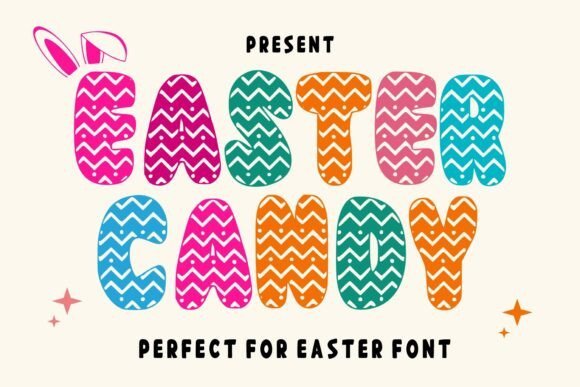
Spring into Creativity with the Easter Candy Font
As the snow melts and flowers bloom, we start to crave the sweet and playful vibes of spring. Have you ever felt the excitement of unwrapping a colorful Easter egg or biting into a sugary candy treat? For designers, this season is the perfect time to tap into that whimsical energy and bring it to life in their creative projects.
Enter the Easter Candy Font, a delightful decorative typeface that captures the essence of Easter eggs and candy. This fun and eye-catching font is designed to add a cheerful touch to any spring or Easter-themed project, from invitations and greeting cards to classroom decorations and social media graphics.
Whether you’re a seasoned designer or a DIY enthusiast, the Easter Candy Font is a valuable addition to your creative toolkit. Its vibrant and playful style makes it perfect for kids’ designs, seasonal branding, and standout headlines – and its ease of use ensures that you can add a joyful pop of color to your projects in no time.
Easter Candy Font Key Features
- Size: The font comes in a single size, but it’s highly scalable to suit various design needs.
- Resolution: The font is designed to be resolution-independent, making it suitable for both print and digital applications.
- Unique Characteristics: The Easter Candy Font features colorful, whimsical illustrations of Easter-themed candies, adding a playful touch to any design.
- Glyphs: The font includes a wide range of glyphs, including uppercase and lowercase letters, numbers, and special characters, as well as Easter-themed icons and decorations.
Easter Candy Font Review
I recently had the chance to work with the Easter Candy Font, and I have to say it’s a fun and playful addition to any design project. ✨ One thing I appreciate about this font is its ability to evoke a sense of whimsy and joy. It’s perfect for creating eye-catching headlines or promotional materials for Easter-themed campaigns.
Another benefit of the Easter Candy Font is its versatility. ✨ It works well in a variety of contexts, from digital design to print materials. I’ve used it in social media graphics, email newsletters, and even on packaging labels. The font is highly customizable, allowing me to adjust the color, size, and spacing to suit my design needs.
- ⚠️ Limited character set: The font only includes a limited set of characters, which can make it difficult to use for longer text blocks or complex content.
- ⚠️ Limited font weights: The font only includes a few font weights, which can limit its usability in certain design scenarios.
Overall, I’m impressed with the Easter Candy Font’s ability to bring a sense of fun and playfulness to design projects. While it has some limitations, I think it’s a great addition to any designer’s toolkit. ✨
Easter Candy Font is perfect for creating Easter-themed designs, invitations, and decorations. It’s also great for adding a playful touch to party invitations, social media posts, and advertising materials.
Tips for Getting the Most Out of Easter Candy Font
To get the most out of Easter Candy Font, try combining it with other Easter-themed graphics, such as eggs, bunnies, and spring flowers. You can also experiment with different font sizes, colors, and styles to create unique and eye-catching designs.